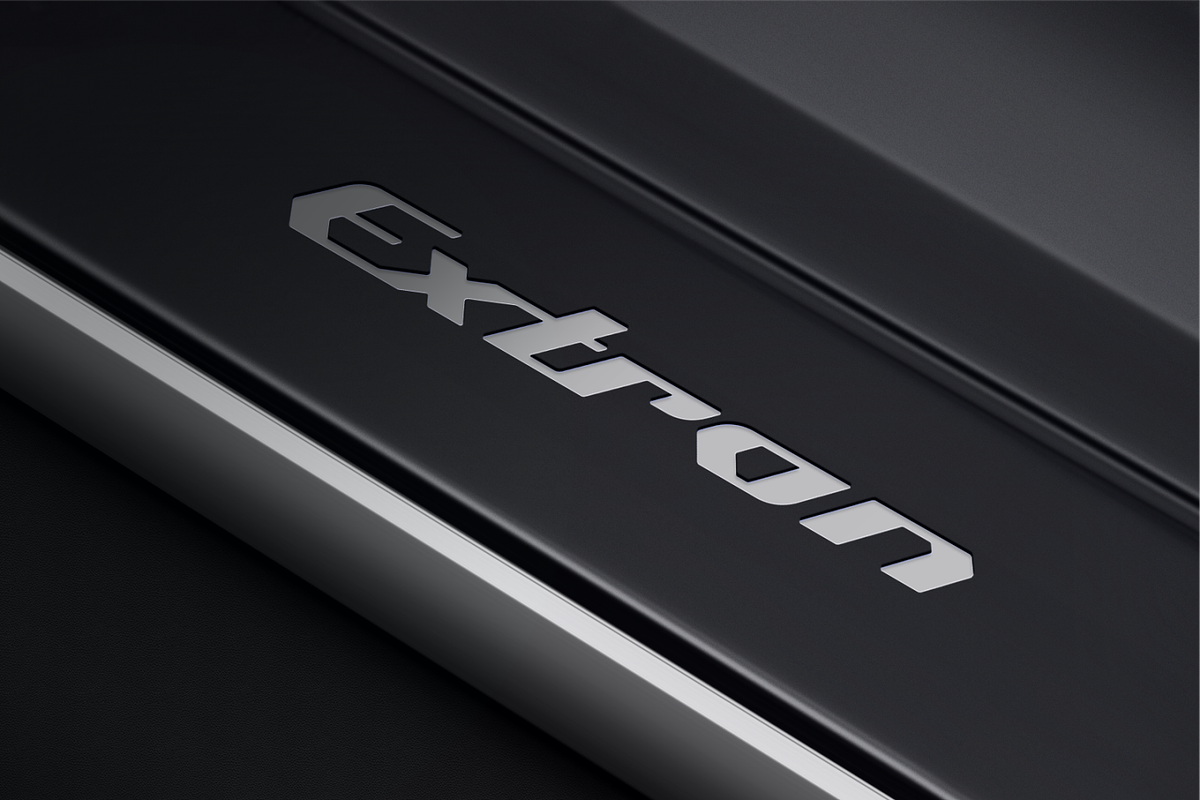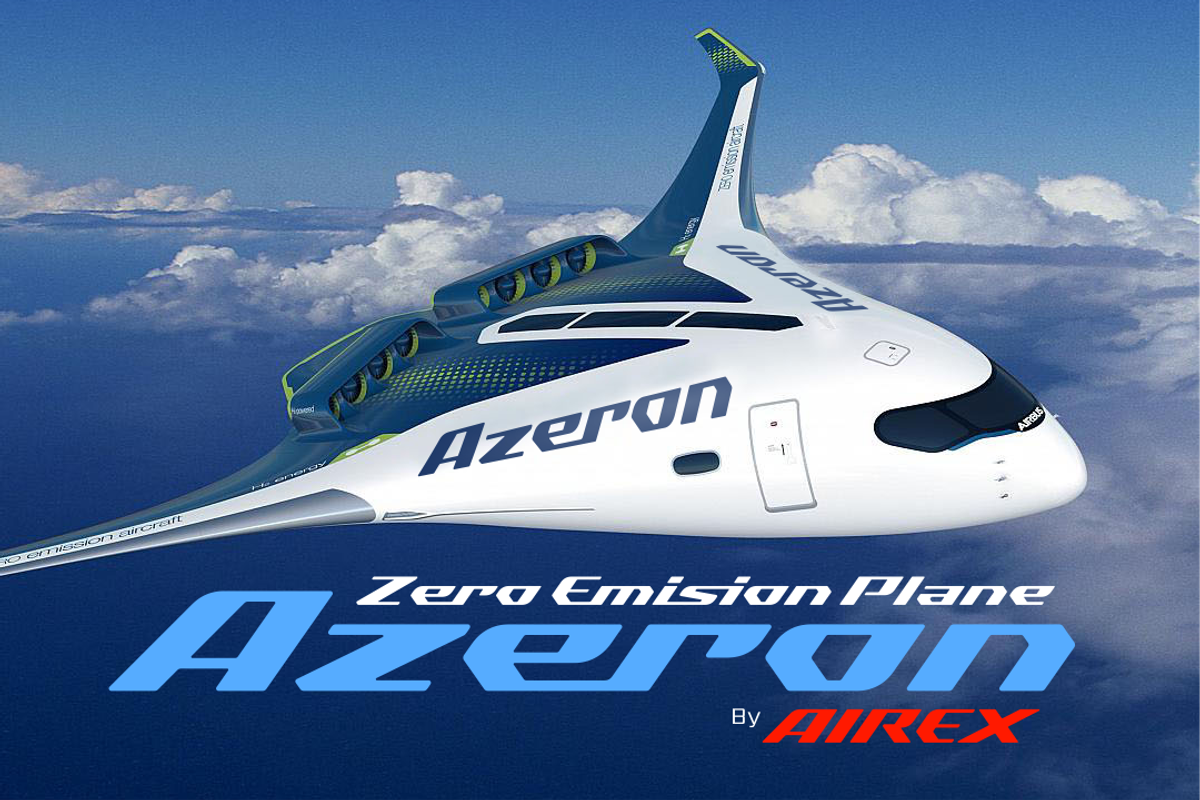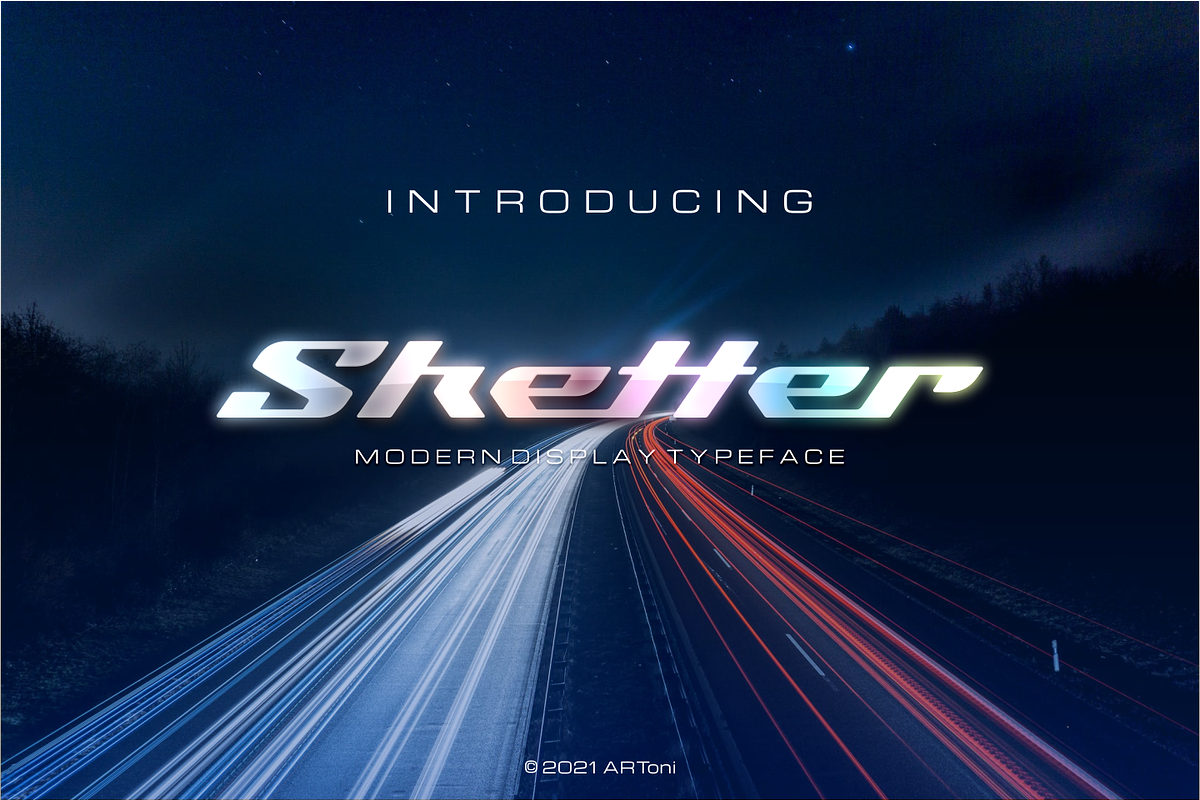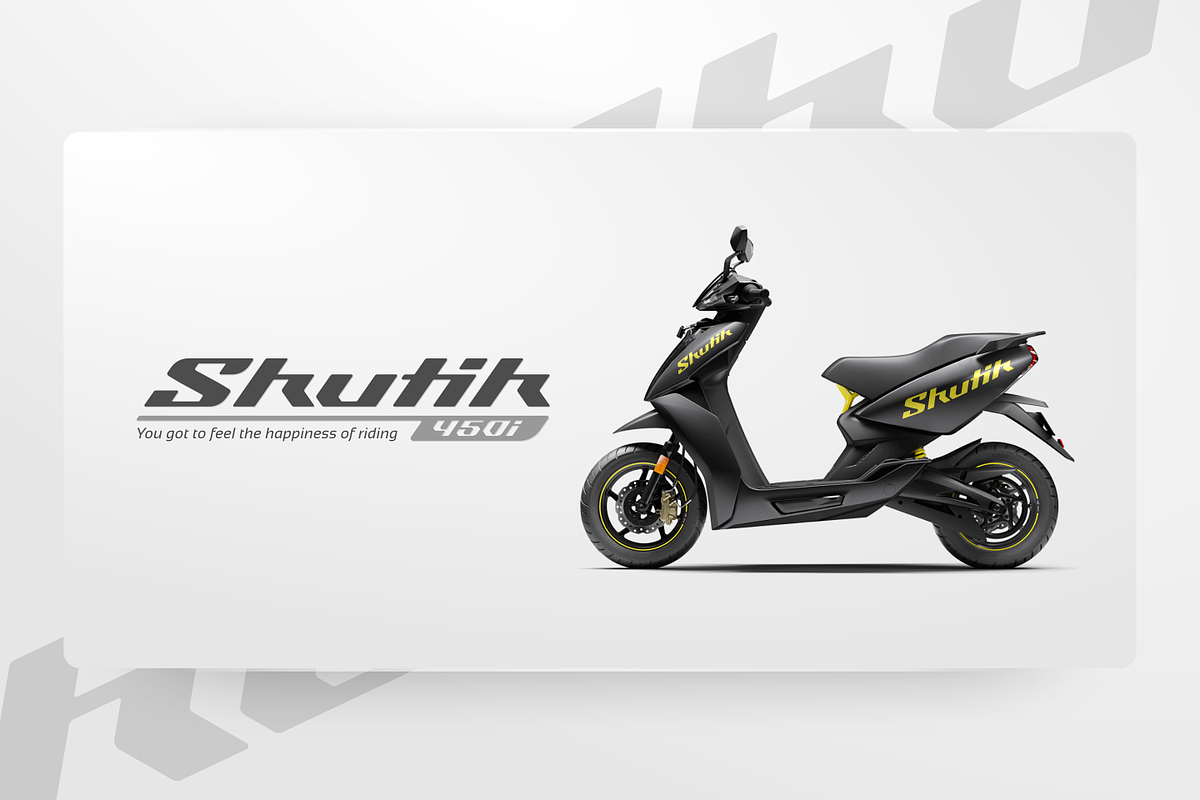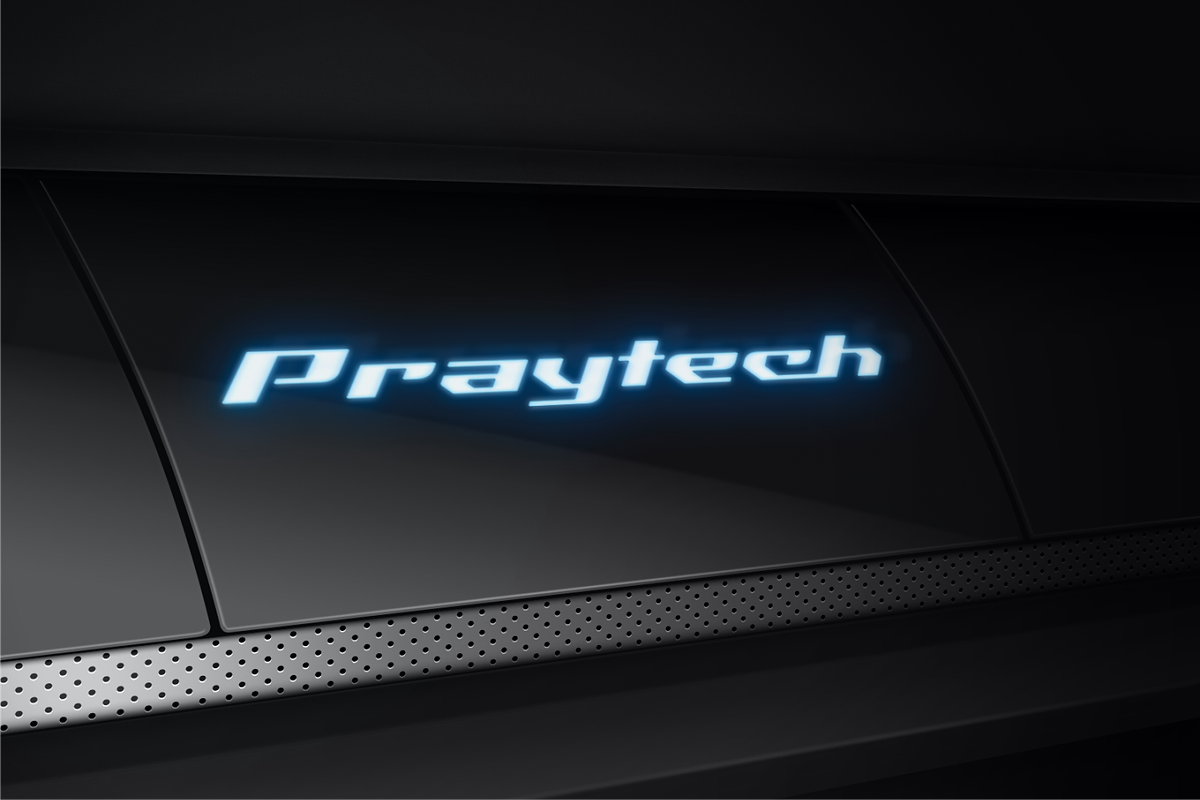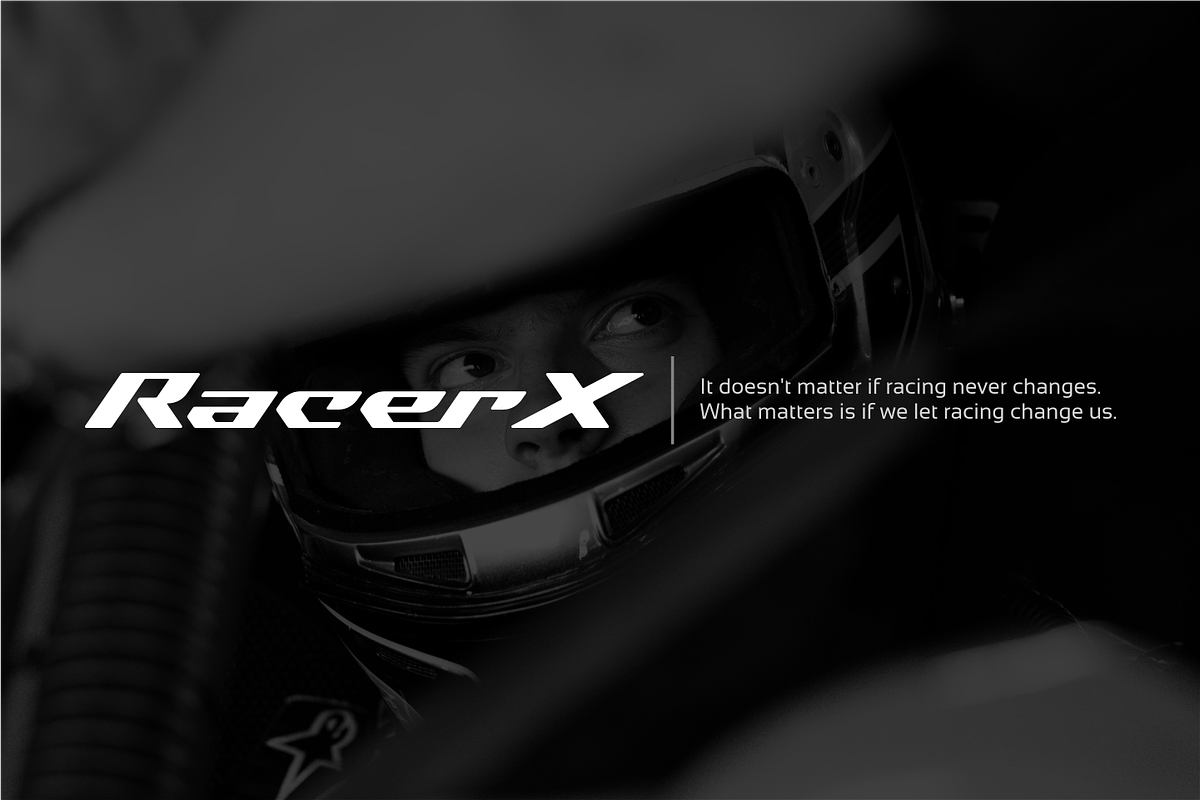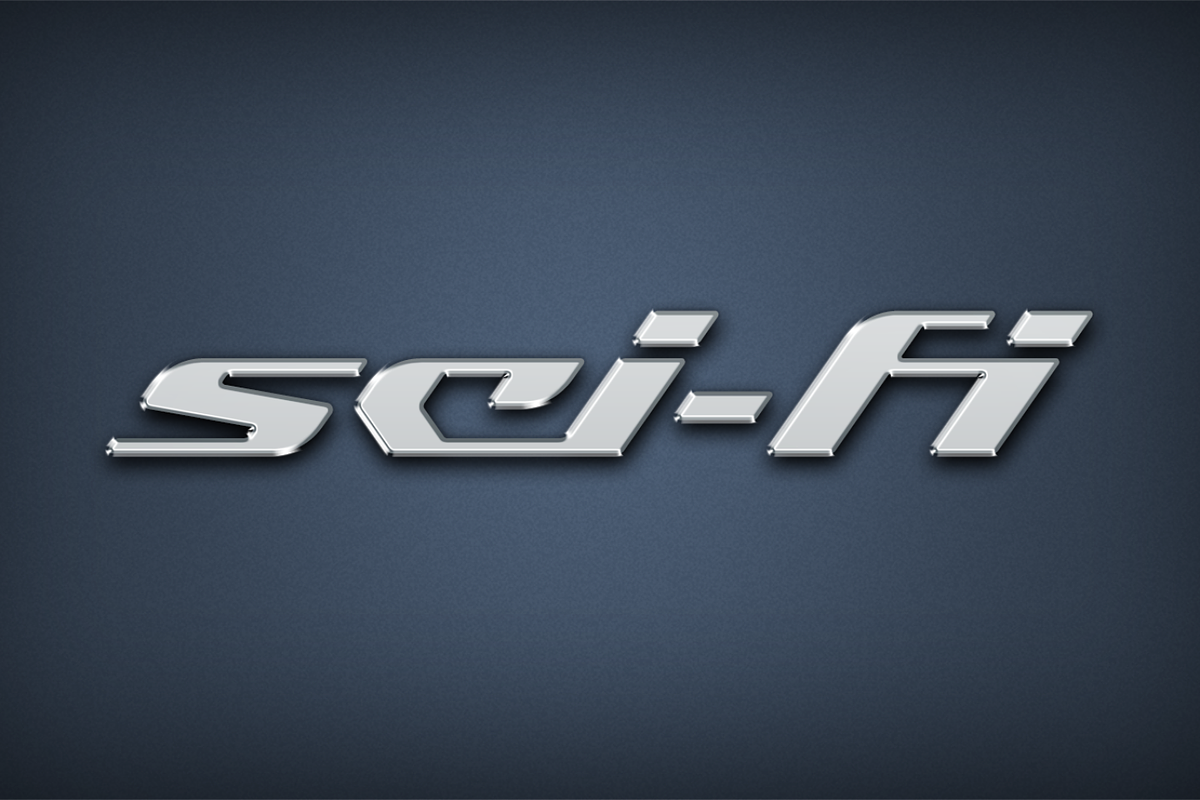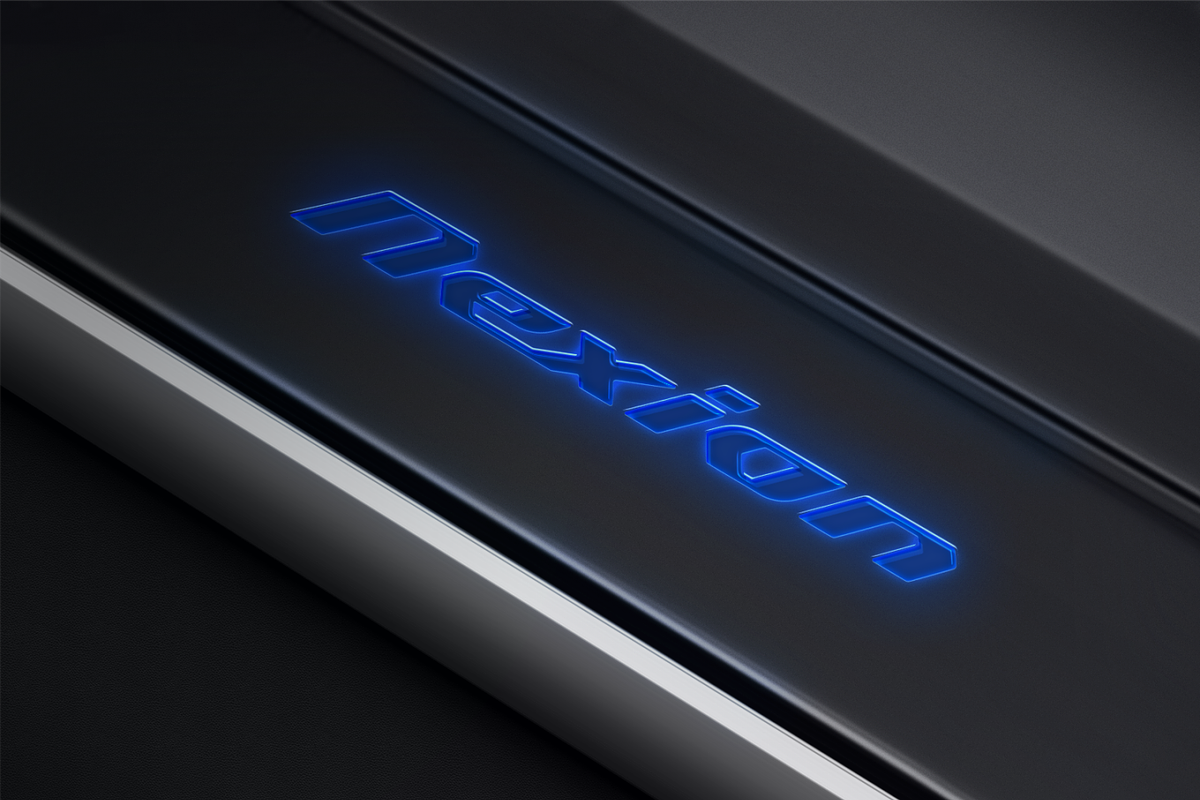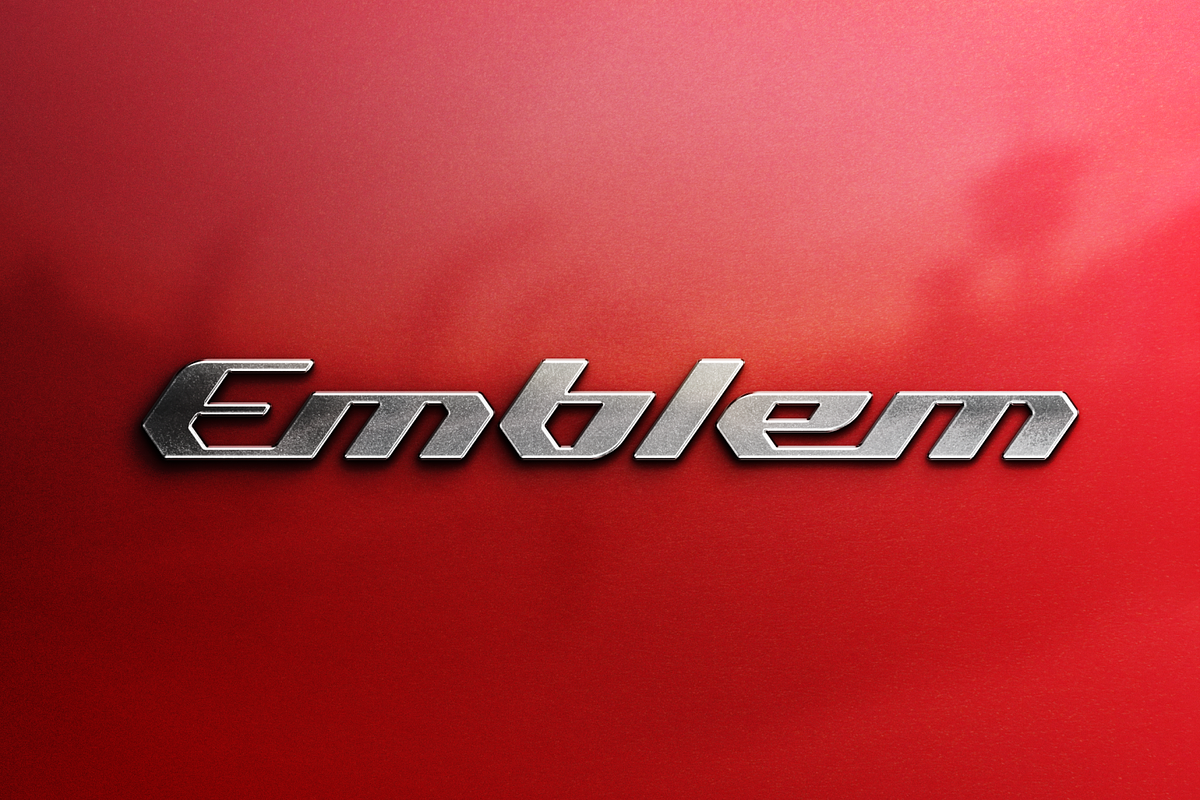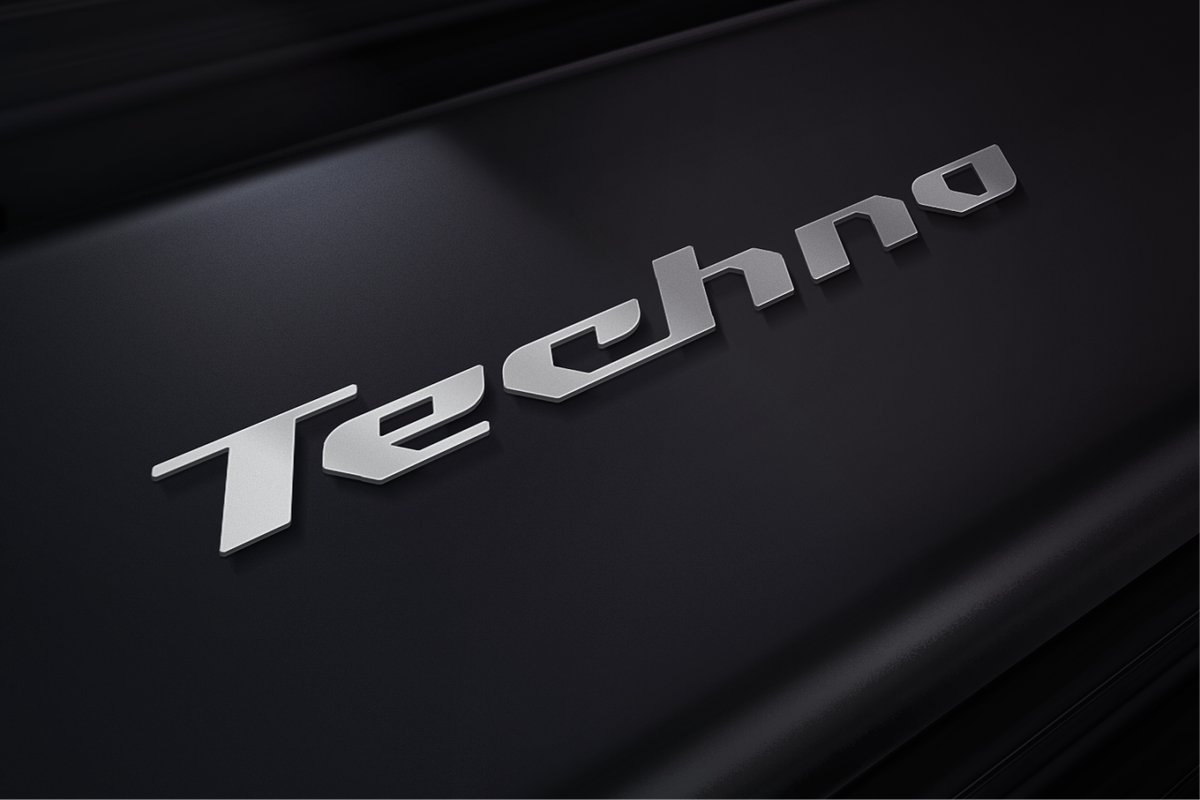
Sketter
Sketter is modern display typeface inspired by aerodynamic designs. Fall in love with its incredibly distinct and timeless style and use it to create spectacular designs!